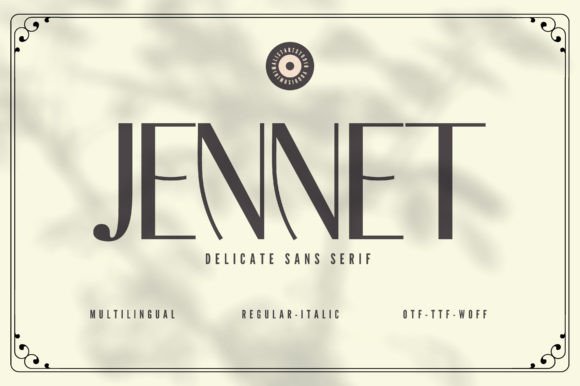
Introducing Jennet Font, the embodiment of elegance and sophistication in the realm of sans serif typefaces. Designed by Minimalistartstudio, this font captivates with its clean lines, modern aesthetic, and remarkable versatility, making it the perfect choice for a diverse range of design projects.
Experience the allure of over 604 glyphs, each meticulously crafted to provide endless possibilities for creative expression. Whether you're a seasoned designer or just starting your journey into the world of typography, Jennet Font will elevate your projects with its timeless beauty and unwavering professionalism.
Unleash your creativity with a font that transcends boundaries. Its multilingual support empowers you to craft designs that speak to a global audience, effortlessly adapting to the nuances of different languages. From international websites to brochures catering to diverse demographics, Jennet Font ensures your message is communicated with clarity and impact.
Immerse yourself in the charm of minimalism, where simplicity and sophistication converge. Jennet Font's clean lines and absence of unnecessary ornamentation create a visual symphony that captivates the eye. Its readability and elegance make it the ideal choice for designs that demand both clarity and visual appeal.
With Jennet Font, you'll discover a font that's not just a tool, but an extension of your creative vision. Its versatility shines in logos, web designs, and editorial layouts, effortlessly adapting to your unique artistic style.
Don't settle for ordinary fonts that blend into the mundane. Embrace the extraordinary with Jennet Font, the ultimate companion for designers who seek sophistication, simplicity, and versatility. Its extensive glyph library and multilingual support make it the ultimate choice for a wide spectrum of design endeavors.
Unlock the potential of your designs with Jennet Font, the chic and elegant sans serif that will leave a lasting impression on your audience. Experience the fusion of timeless beauty and modern functionality, and elevate your projects to new heights of creativity and professionalism.